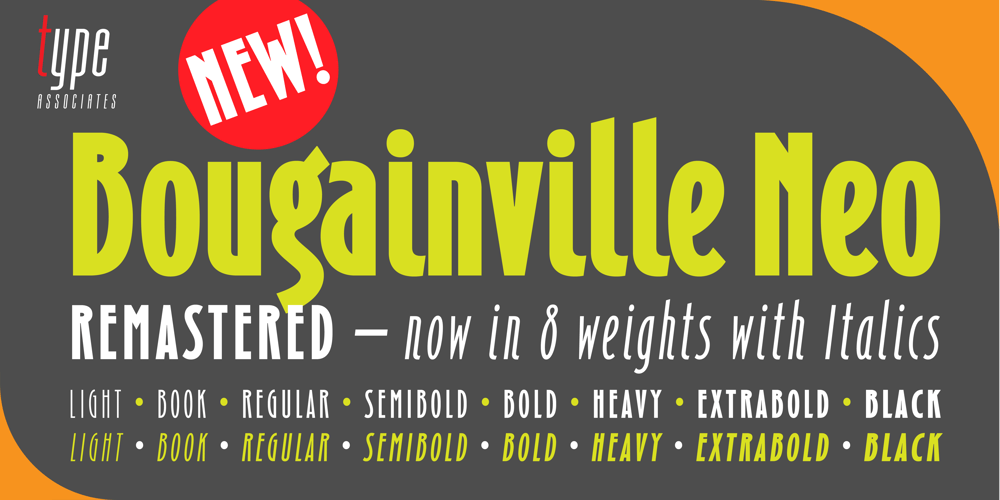
Bougainville Neo Font Family was designed by Russell Bean and published by Type Associates. Bougainville Neo contains 16 styles and family package options. Bougainville Neo is a complete remake of our popular Bougainville series which first appeared at MyFonts in 2005. Neo is now in 4 additional weights plus italics. The original typeface family was named in honor of the renowned eighteen-century French mathematician and explorer Louis-Antoine de Bougainville to whom we owe the naming of South Sea Islands and colorful tropical flora he discovered along his journey. Bougainville Neo makes for effective headings at any size and is equally readable at semi-display sizes.